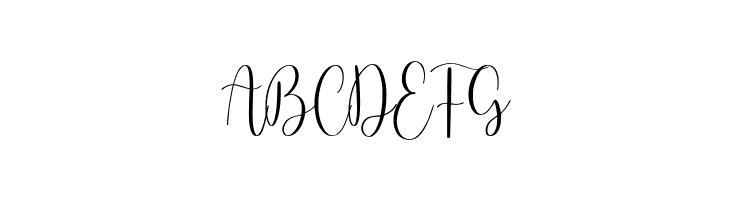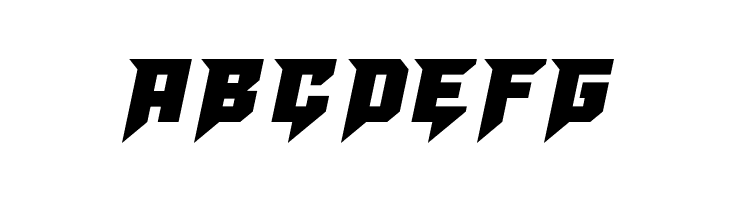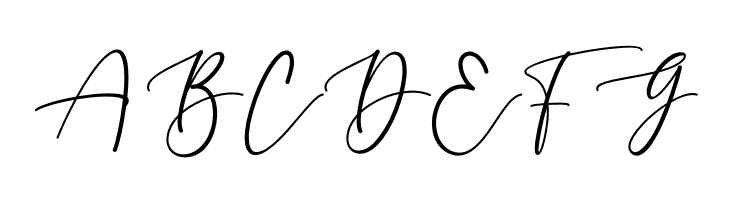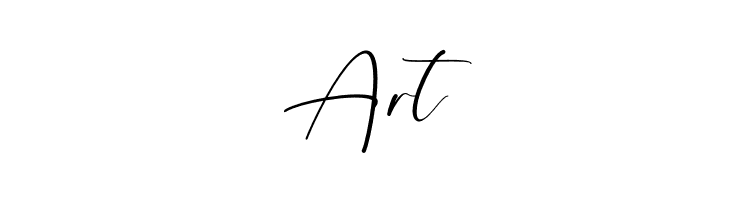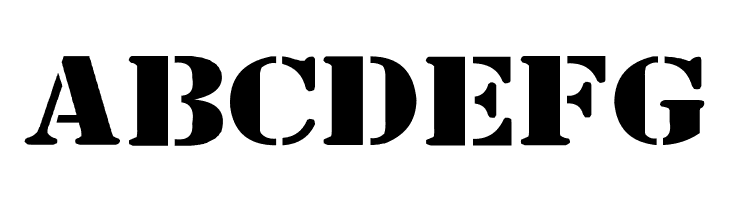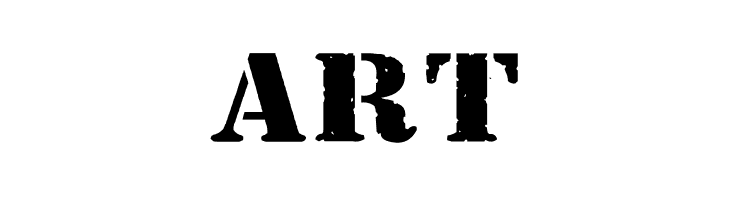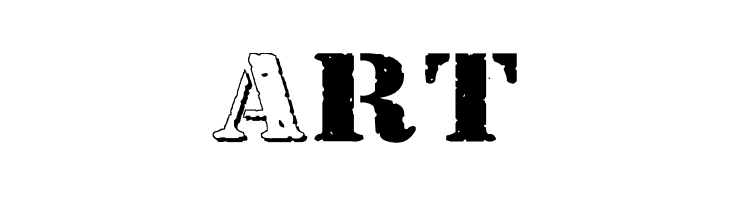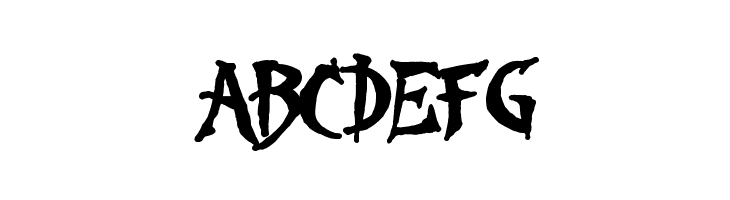
A dynamic and elegant cursive script font with flowing, interconnected strokes.
A Gothic-inspired font with sharp, intricate details and a dramatic style.
A dynamic and flowing script font with elegant, cursive letterforms.
A bold, geometric font with modern, futuristic design elements.
A bold, geometric font with a blocky, retro-modern style.
A bold, angular, and italic font with high contrast and geometric shapes.
A bold, geometric font with strong, angular lines and a modern aesthetic.
A bold, angular font with a dynamic, geometric style.
A bold, handwritten-style font with dynamic and expressive strokes.
A bold, italic script font with dynamic strokes and high contrast.
A lively, handwritten-style font with dynamic strokes and a playful feel.
A thin, handwritten font with a casual and playful style.
A thin, italic, handwritten-style font with a dynamic and expressive character.
A bold, distressed font with a rugged, grunge aesthetic.
A bold, distressed font with a rugged, vintage appearance.
A bold, geometric font with a modern, futuristic style and decorative elements.
A bold, narrow font with sharp angles and a dramatic, modern style.
A bold, italic font with a strong slant and high contrast, exuding energy and modernity.
A bold, playful font with rounded, hand-drawn characters.
A bold, brush-style font with dynamic, textured strokes.
A bold, textured font with a rugged, vintage appearance.
A bold, geometric inline font with a strong, commanding presence.
A bold, geometric stencil font with a military-industrial aesthetic.
A bold, angular font with a distressed, edgy appearance.
A bold, hand-drawn font with an energetic and playful style.
A bold, hand-drawn font with an expressive and artistic style.